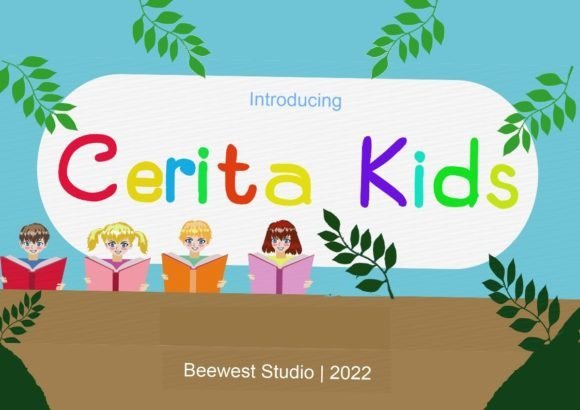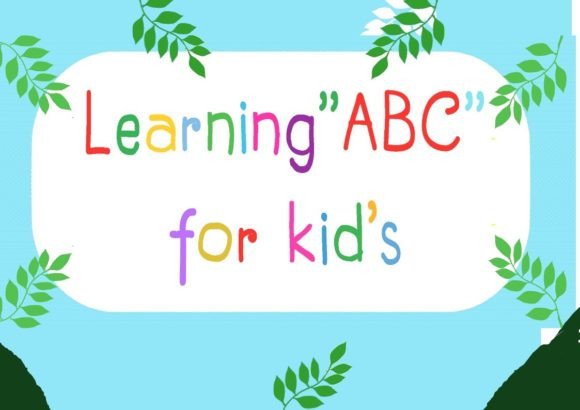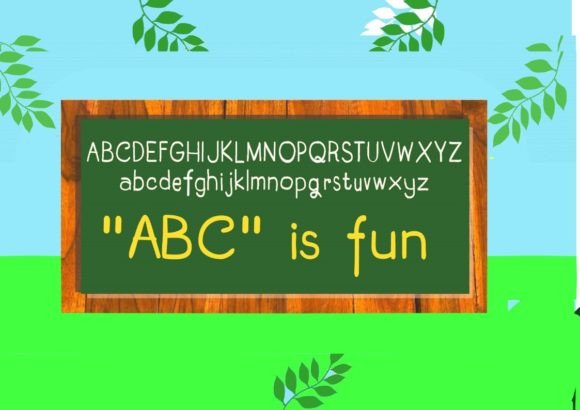
Crafting Whimsical Worlds: The Magic of Cerita Kids Font
Have you ever sat down with a pencil and paper, letting your imagination run wild as you brought a story to life? That’s the kind of creative moment that inspired the Cerita Kids Font – a delightful, hand-drawn font that captures the essence of childhood wonder.
Crafted specifically for comics and children’s books, Cerita Kids Font is designed to evoke a sense of playfulness and curiosity. With its natural, handwritten feel, it’s the perfect tool for designers looking to add a touch of whimsy to their projects. Whether you’re creating a children’s book, a comic strip, or even a marketing campaign, Cerita Kids Font is a valuable asset that will help bring your vision to life.
Cerita Kids Font Key Features
- Font Styles: The Cerita Kids Font comes in various styles, including regular, bold, italic, and bold italic, providing users with a range of options for their designs.
- Character Count: The font includes a vast character set, with over 1000 glyphs, ensuring that users have a wide range of characters to choose from for their designs.
- Unique Characteristics: The Cerita Kids Font features a unique, playful design that is perfect for children’s books, educational materials, and other designs that require a friendly and approachable tone.
Cerita Kids Font Review
As a designer, I was excited to dive into the “Cerita Kids Font” and see if it could bring some magic to my next project. Here’s my honest review.
- Playful and Whimsical: Cerita Kids Font is perfect for creating a playful and whimsical atmosphere, making it ideal for children’s books, educational materials, and more.
- Unique Character Set: The font has a unique character set that includes fun and quirky characters, such as speech bubbles and emojis, which can add an extra layer of personality to your designs.
- Highly Customizable: The font is highly customizable, allowing you to adjust the size, color, and style to fit your design needs.
- Limited Font Sizes: While the font is highly customizable, it seems to be limited in terms of font sizes, which can make it difficult to use in certain design scenarios.
- Lack of International Support: The font seems to be primarily designed for English-speaking countries, which can limit its use in international design projects.
- Some Characters May Not Display Correctly: I experienced some issues with certain characters not displaying correctly, especially in smaller font sizes.
Overall, I think the “Cerita Kids Font” is a great addition to any designer’s toolkit. While it has some limitations, its playful and whimsical nature makes it perfect for creating engaging and fun designs. With a little bit of tweaking and customization, I think this font has the potential to become a go-to choice for designers working on children’s projects.
Some tips for getting the most out of Cerita Kids Font include:
– Using it for children’s book covers and illustrations.
– Creating playful and whimsical designs for kids’ parties and events.
– Adding a touch of nostalgia and retro charm to your designs.
– Pairing it with other playful fonts for a fun and eclectic look.
Alternatives to Cerita Kids Font
Great Vibes Font is a modern, playful, and cursive font. It’s perfect for designing children’s books, educational materials, and websites that target a young audience. This font is more modern and sleek compared to Cerita Kids Font, which has a more classic and whimsical feel.
Q: What is the recommended font size for using the Cerita Kids Font?
The recommended font size for the Cerita Kids Font is between 12pt and 24pt, depending on the intended use and the size of the text. For body text, 14pt to 18pt is a good range. For headings, 20pt to 24pt is recommended. Experiment with different font sizes to find the optimal size for your design.